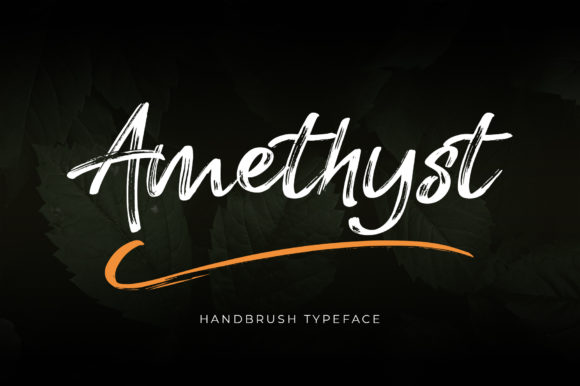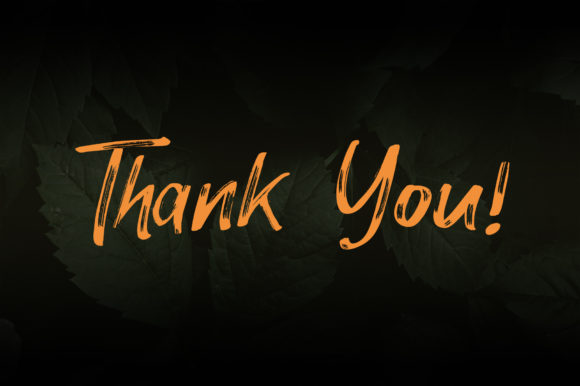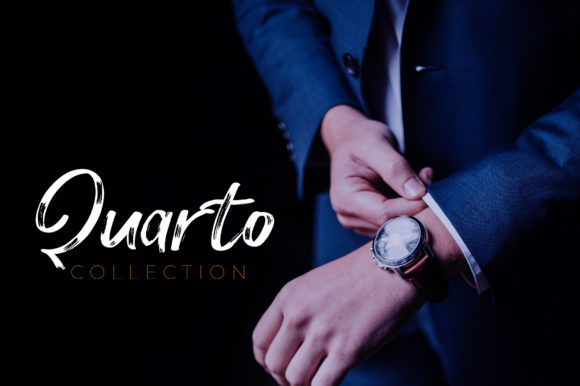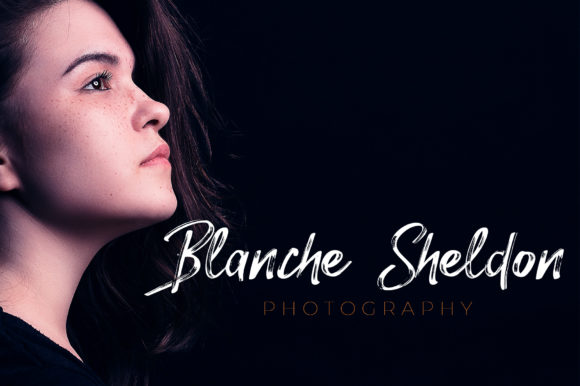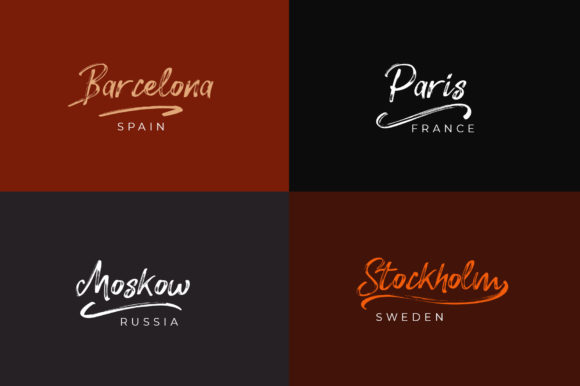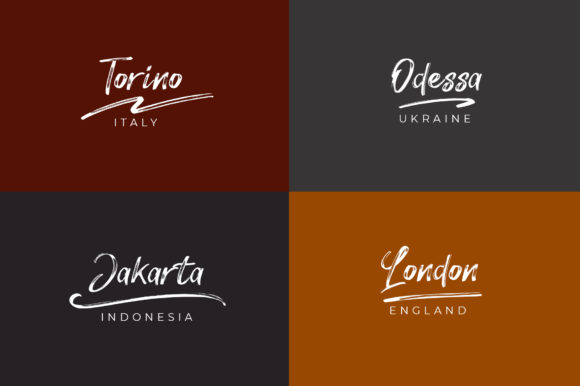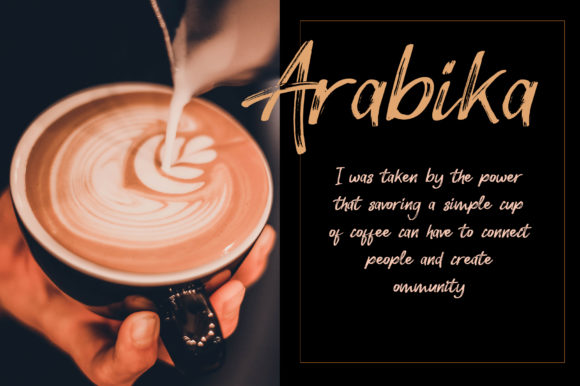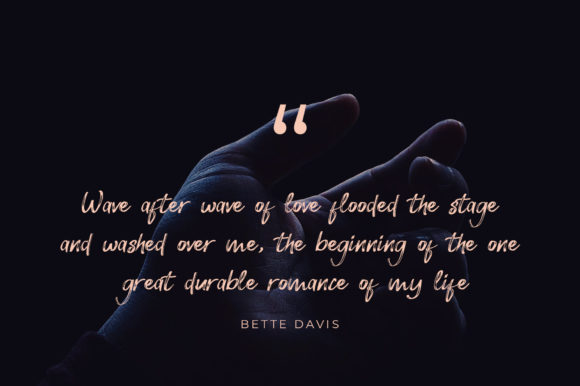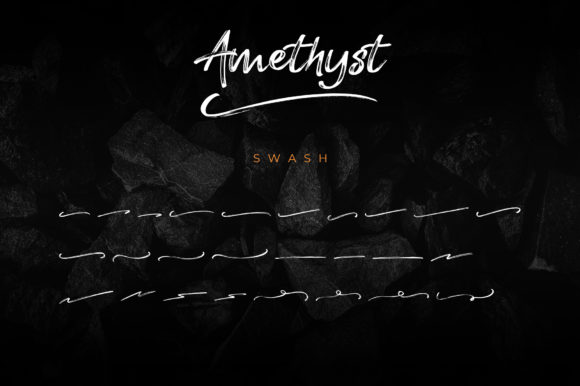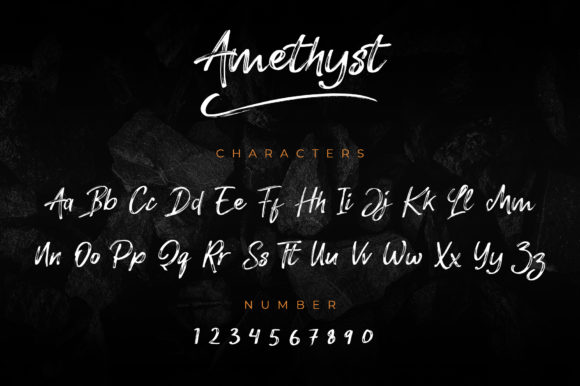
Amethyst Font
About Amethyst Font
Amethyst is an exciting handwritten font with brush style. This beautiful script can make your text appear elegant, luxurious, and modern!